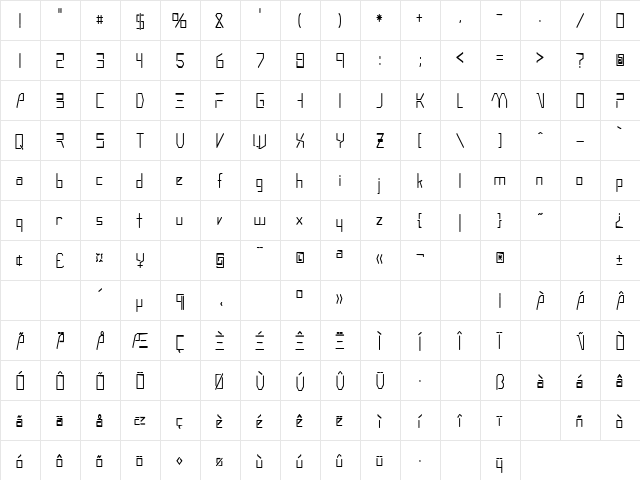
Syrinx 3 Regular
Design Context for Syrinx 3 Typeface
Syrinx 3 is a composed and adaptable typeface that performs quietly and consistently across a wide range of design contexts.